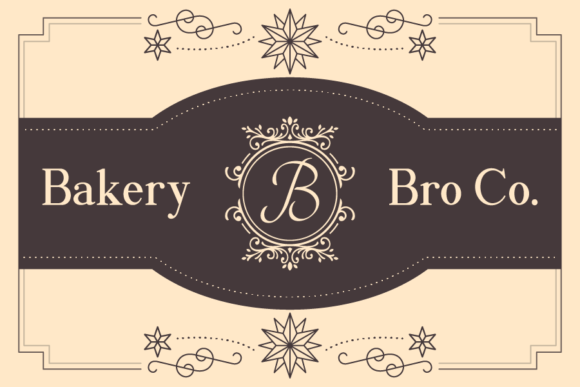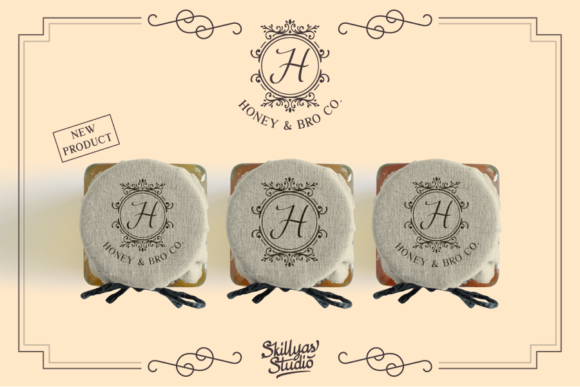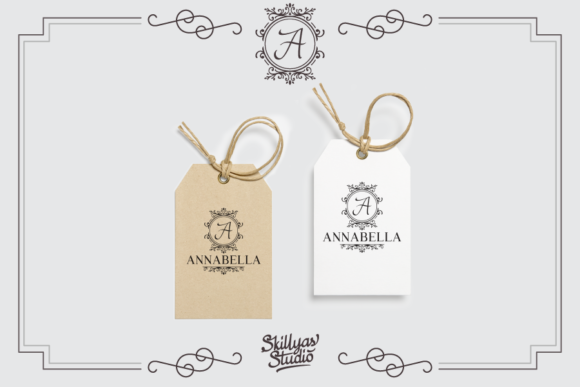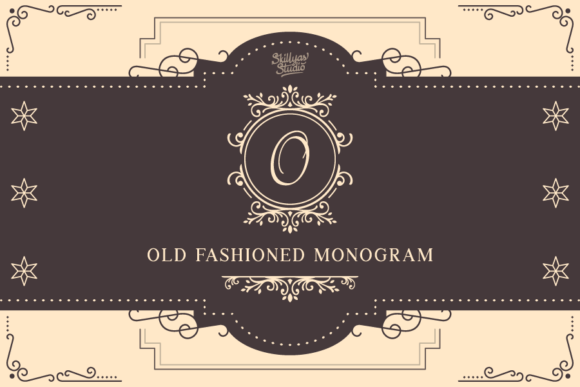
Introduction to Old Fashioned Monogram Font
Old Fashioned Monogram is a luxury and retro-looking decorative font, perfect for projects that need a stylish and old-fashioned vibe, with a modern twist.
Use it for logos, apparel designs, marketing materials, product packaging, and so much more .
Why Choose Old Fashioned Monogram Font?
Old Fashioned Monogram Font offers exceptional quality and versatility, making it a valuable addition to your design toolkit. Whether you’re creating for personal projects or commercial use, Old Fashioned Monogram Font delivers professional results.